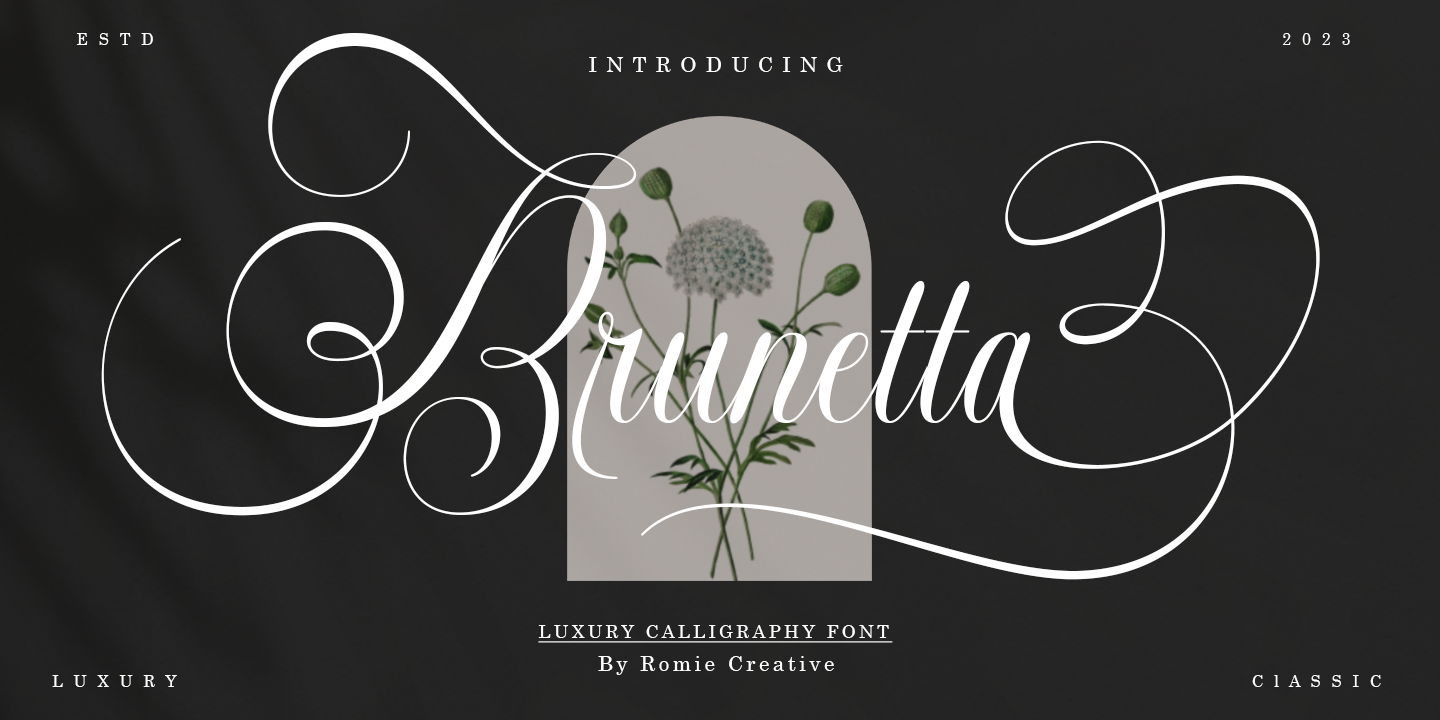
Brunetta Calligraphy Font is an exquisitely elegant and sophisticated script typeface that captures the timeless beauty of handcrafted penmanship. This graceful font is perfectly suited for projects that demand a refined, personal, and luxurious touch. Imagine Brunetta Calligraphy Font gracing the heartfelt sentiments on wedding stationery, adding a bespoke charm to high-end product packaging, or providing an air of exclusivity to boutique branding. It's also ideal for crafting unique invitations for special events, designing elegant certificates, or lending an authentic, artisanal feel to personalized gifts and greeting cards. Its flowing connections and delicate swashes make it superb for creating memorable visual identities, luxurious social media graphics, and any design where a touch of classic romance and individual artistry is desired.
What makes Brunetta Calligraphy Font so exciting is its remarkable ability to blend traditional calligraphic artistry with a smooth, contemporary flow, making it both classic and refreshingly modern. It possesses an inherent warmth and intimacy, as if each word has been lovingly penned, bringing a sense of human connection and bespoke craftsmanship to your text. This font isn't just about conveying words; it's about conveying emotion, prestige, and a meticulous attention to detail. Its beautiful curves and intricate flourishes create a rich visual experience that instantly elevates the perceived quality and emotional resonance of your design, making it truly captivating for sophisticated projects.
Brunetta Calligraphy Font typically comes with a comprehensive array of stylistic alternatives, ligatures, and swashes, offering designers immense creative freedom to customize the appearance of their text. You can expect multiple alternative characters for specific letters, ensuring smooth transitions and unique word stylings. Many Brunetta Calligraphy Font families also include different weights, from a delicate thin to a more pronounced bold, along with stylistic sets that allow for truly tailored letterforms. These robust features ensure that Brunetta Calligraphy Font can adapt to intricate design needs while maintaining its distinctive and enchanting calligraphic appeal.